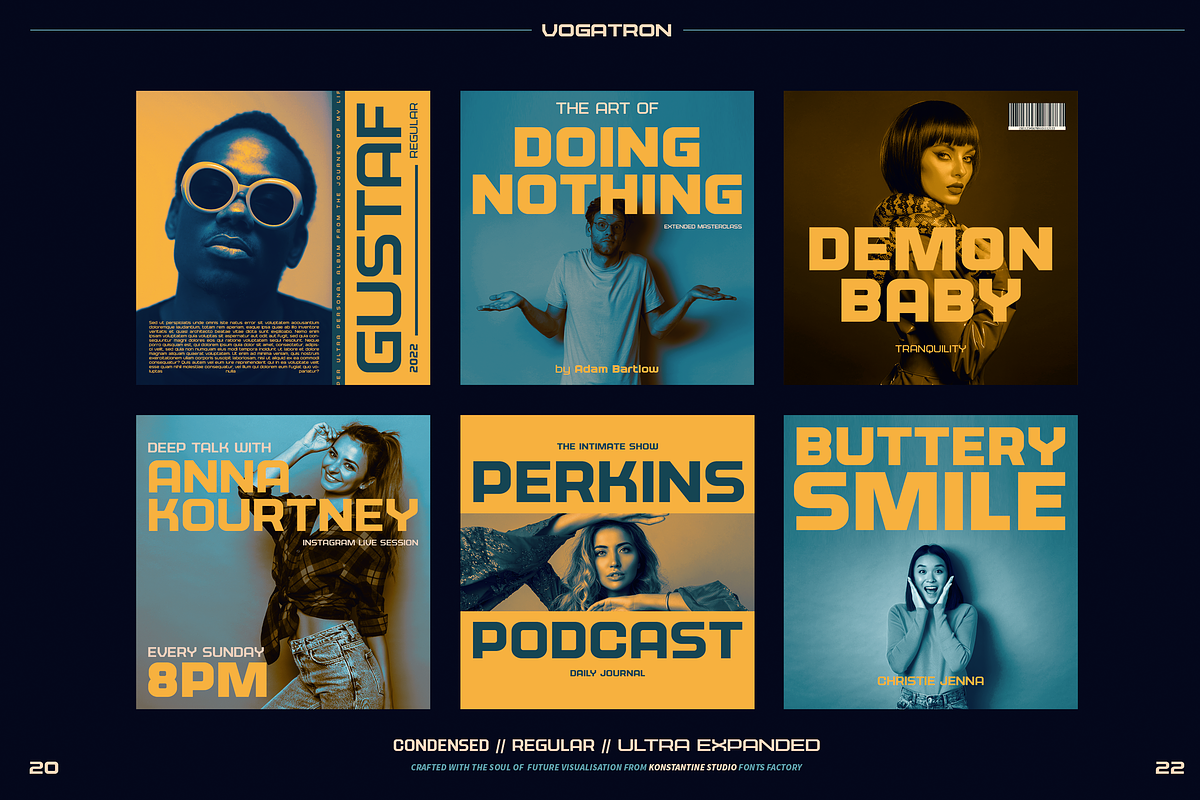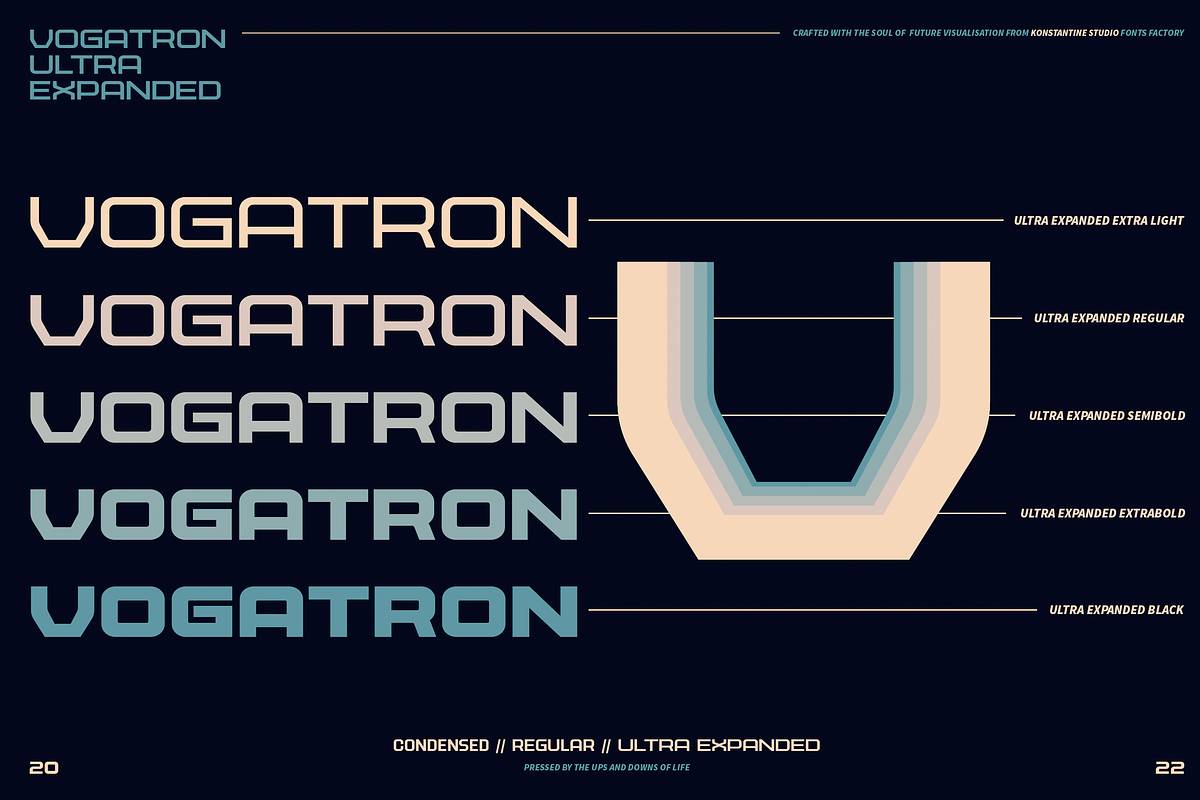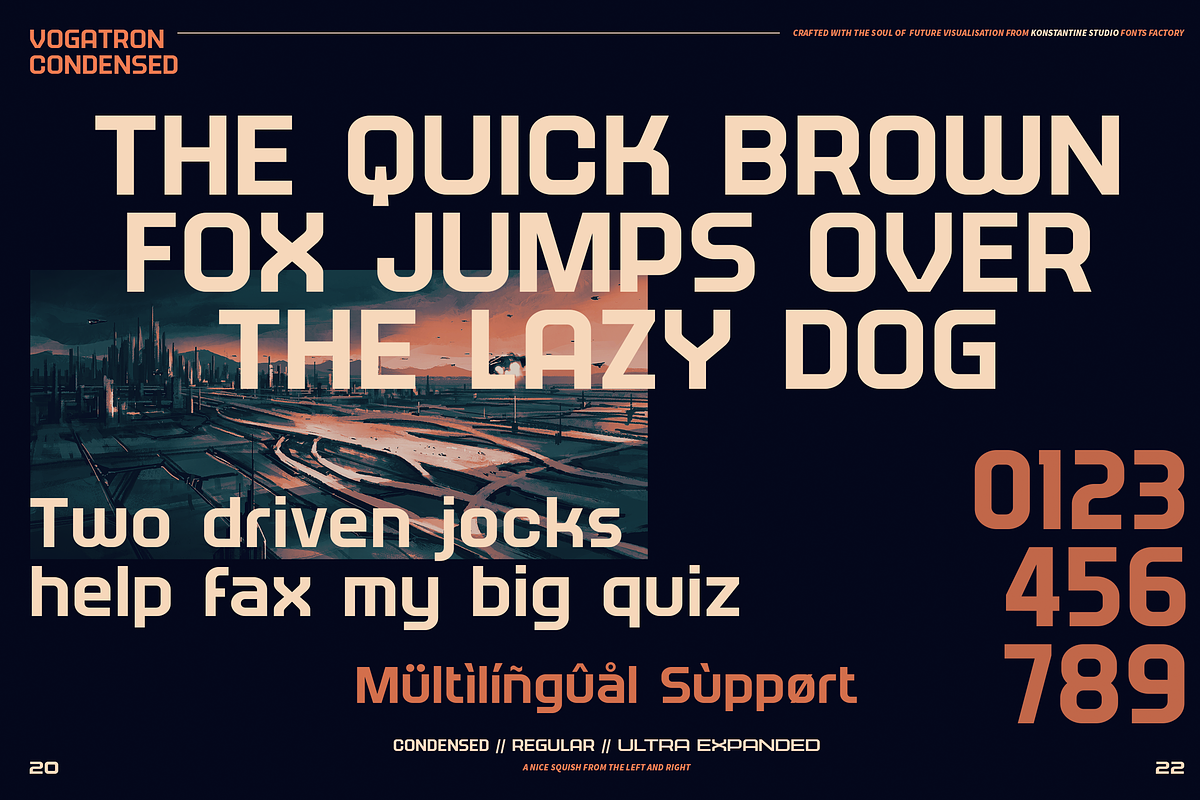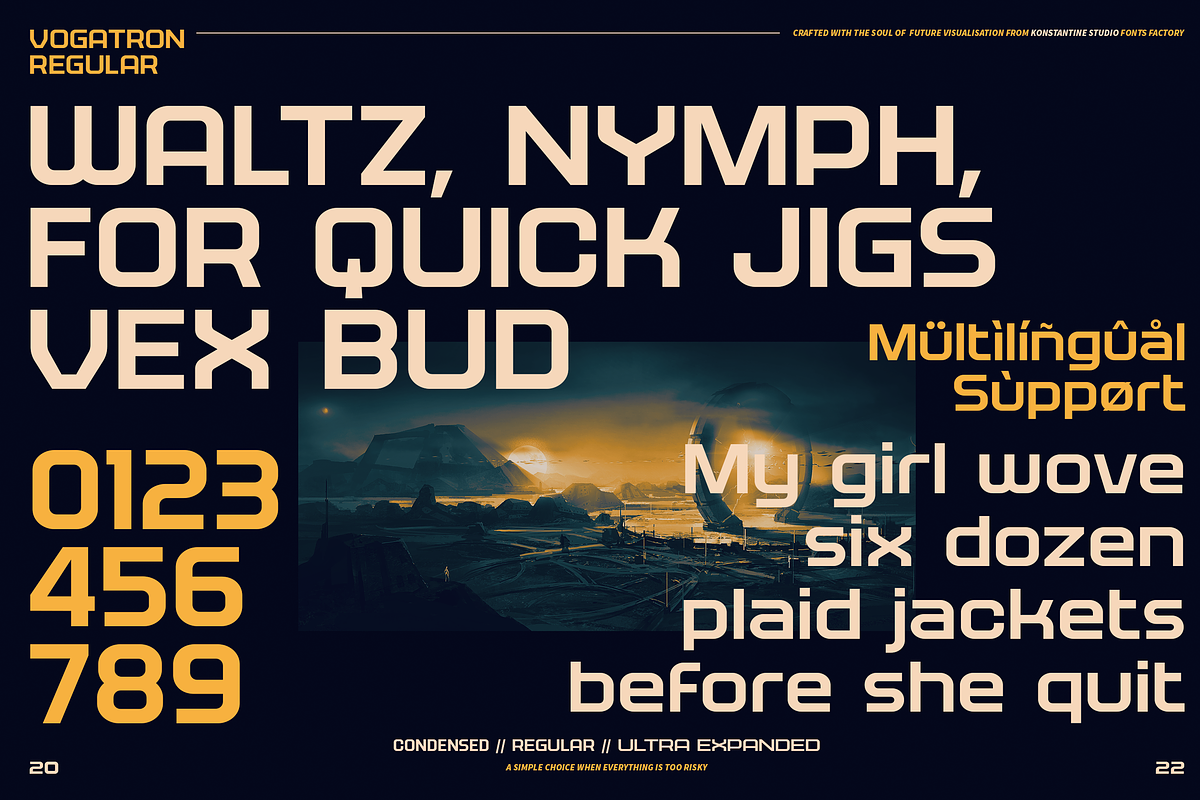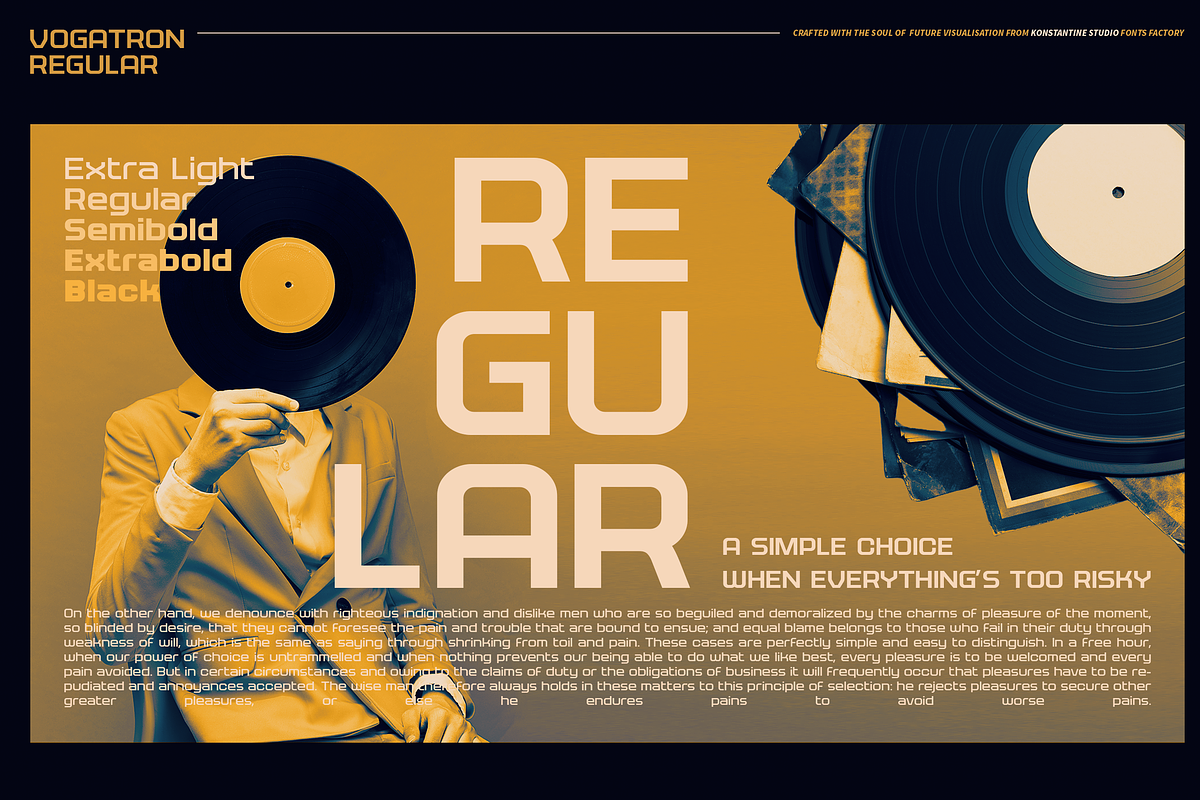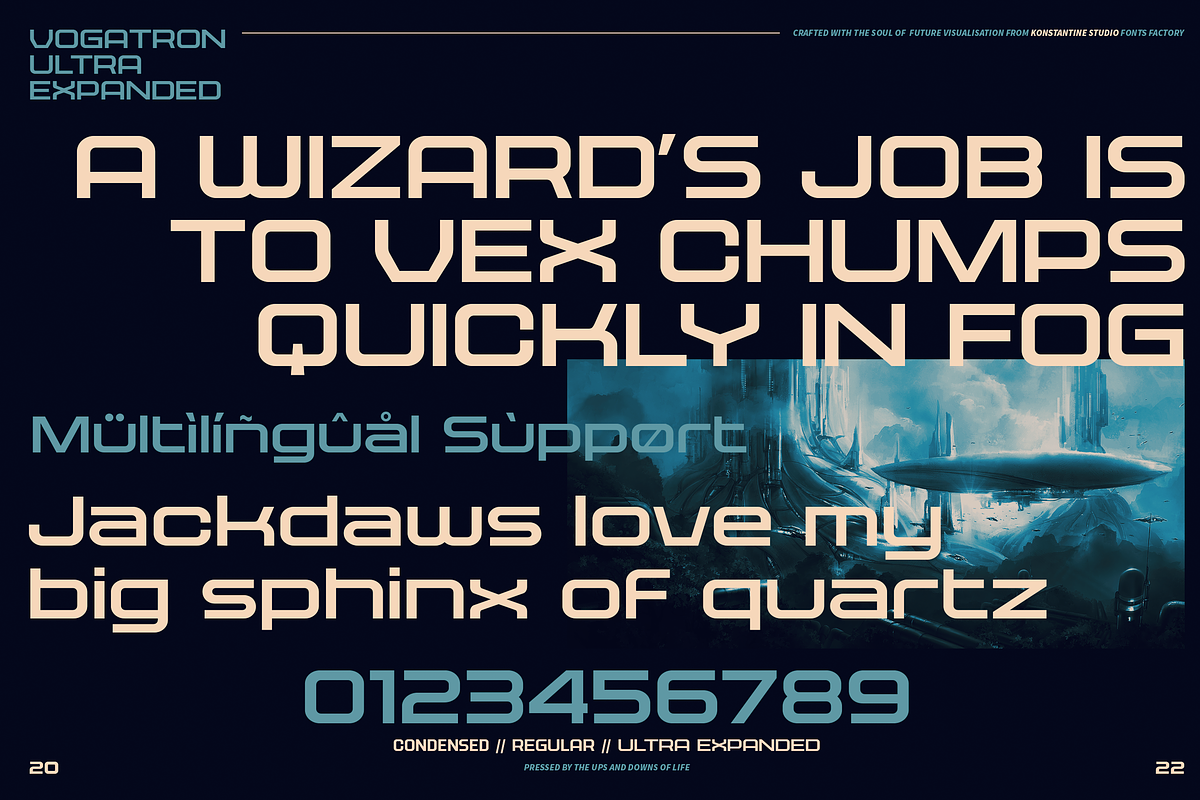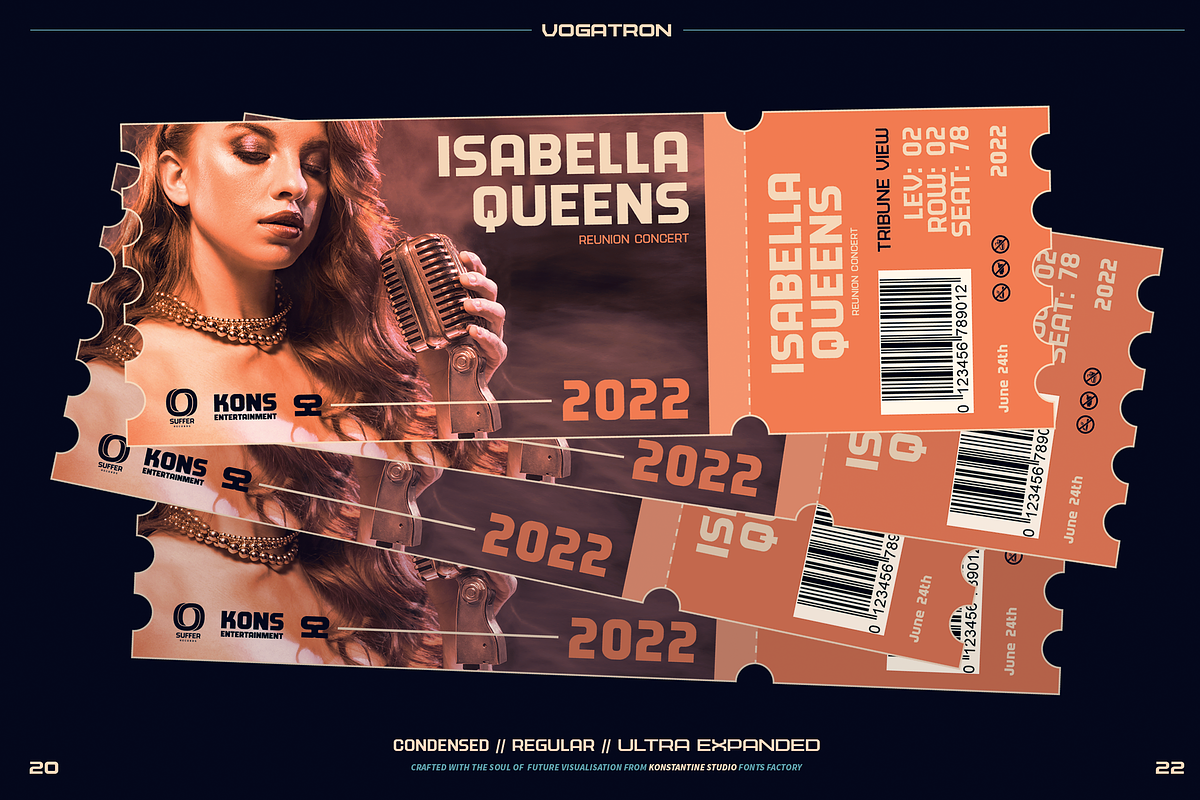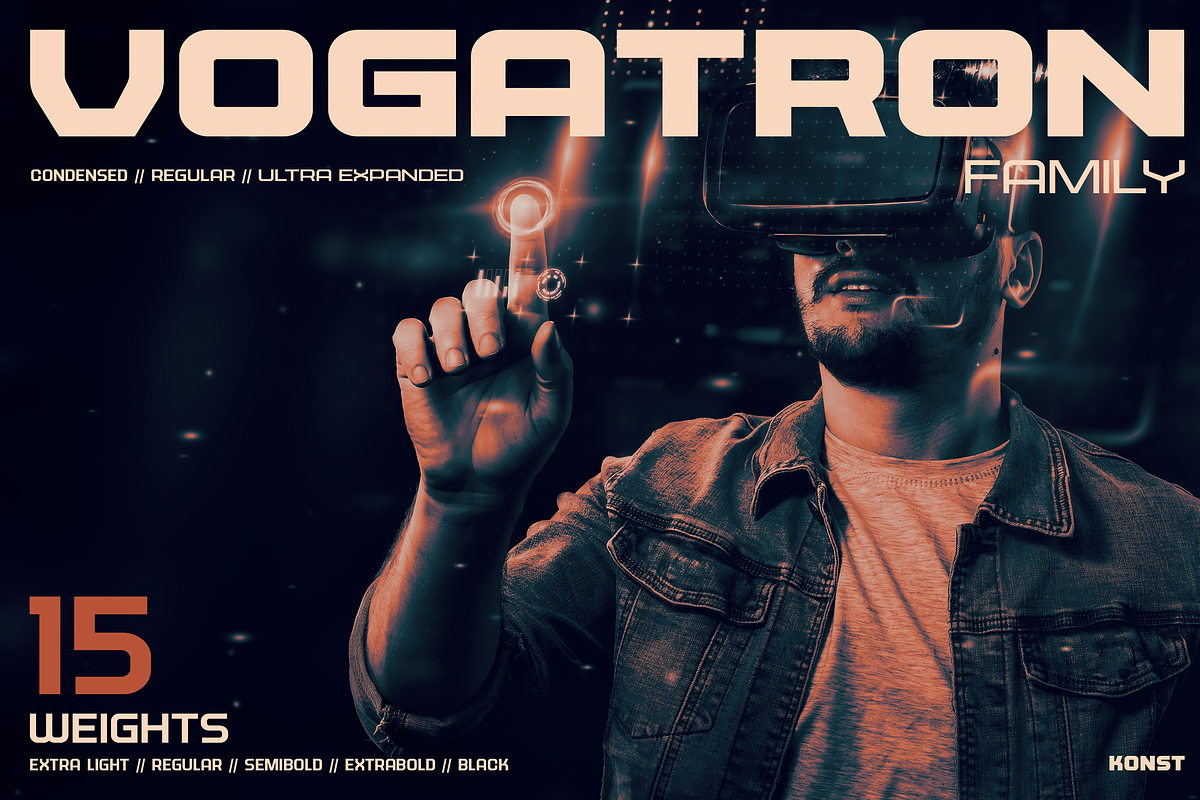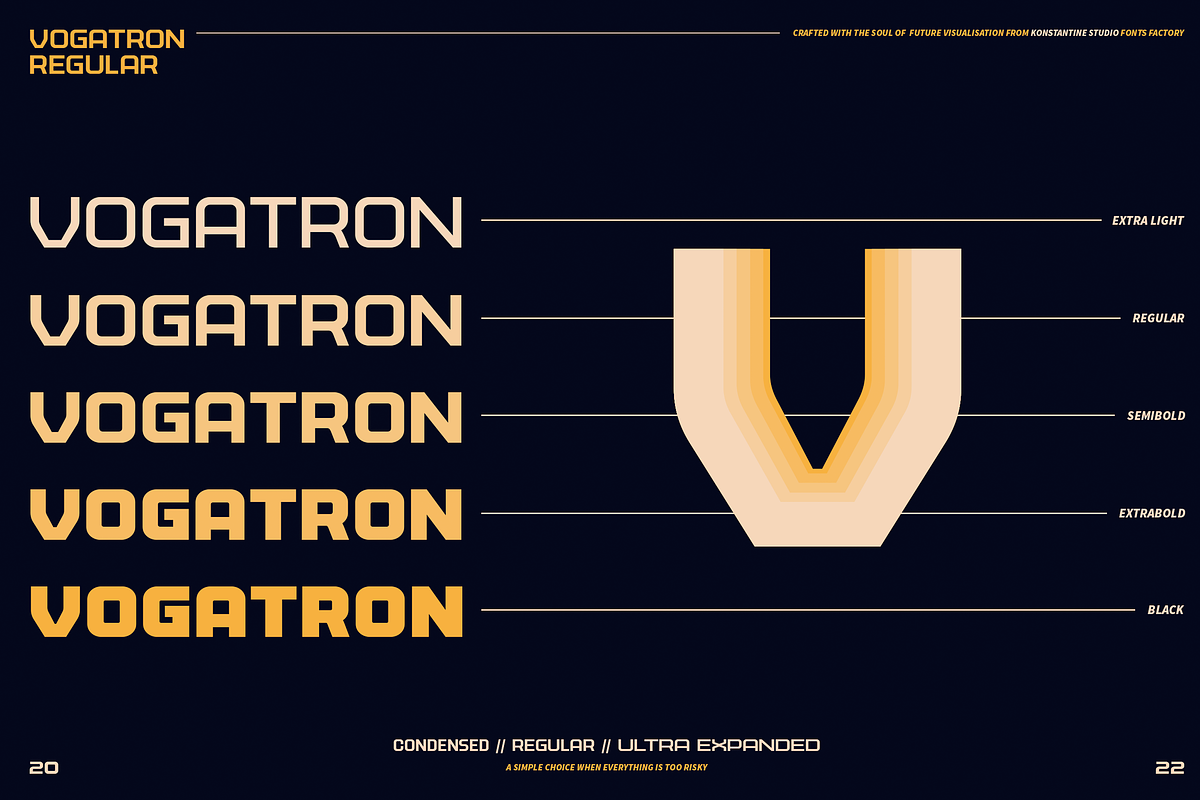
VOGATRON - Futuristic Modern Fonts
Get yourself ready to jump on into the future-verse realm with the VOGATRON. A solid-strong futuristic sans-serif display fonts with a wide range of possibilities in usage.
We're not joking when we say wide. The variety of styles that comes in 15 weights, from Condensed to Expanded, will make you ask no more for another choice.
Fortunately, we're living in the best moment in this era of Retro-Futurism trends, when the retro and futuristic vibes are running side-by-side in terms of visual implementation nowadays. Which makes VOGATRON are easier to play with on every occasion.
Perfectly fit for futuristic branding, retro gaming vibes, posters, esport logo, visual branding, social media content, streaming overlay design, animation project, you name it.